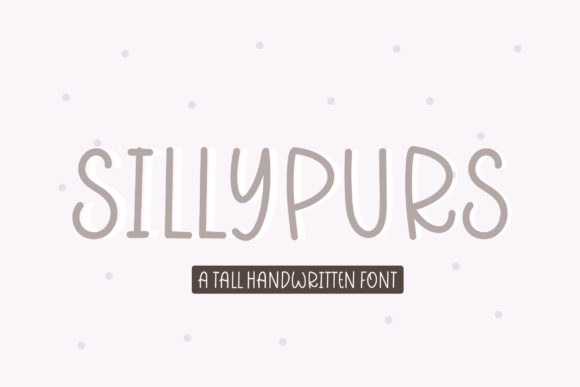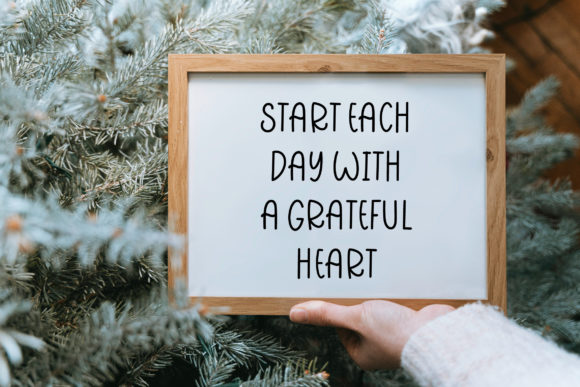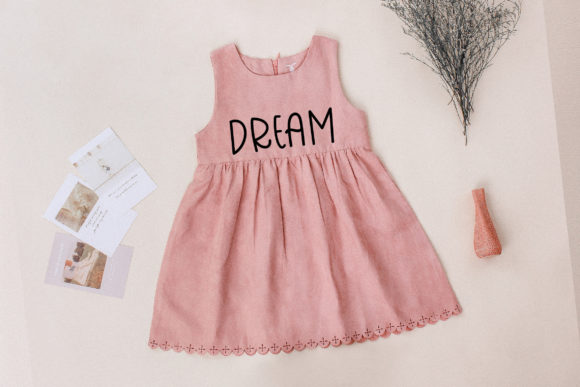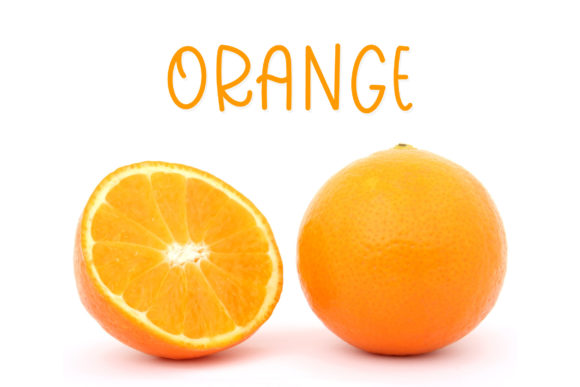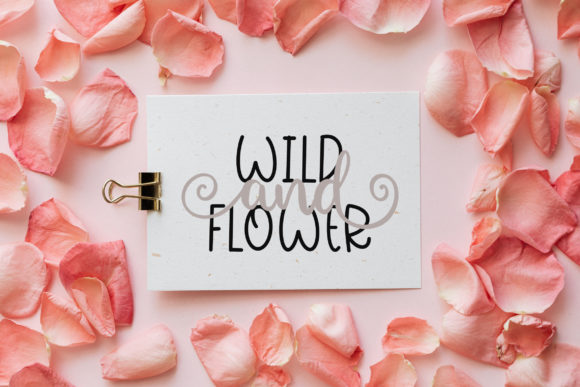
Sillypurs Font
About Sillypurs Font
Sillypurs is a cute and simple lettered handwritten font that can be used for all chalkboard quotes or teaching material! Its authentic look will add a personal and realistic feel to your designs.